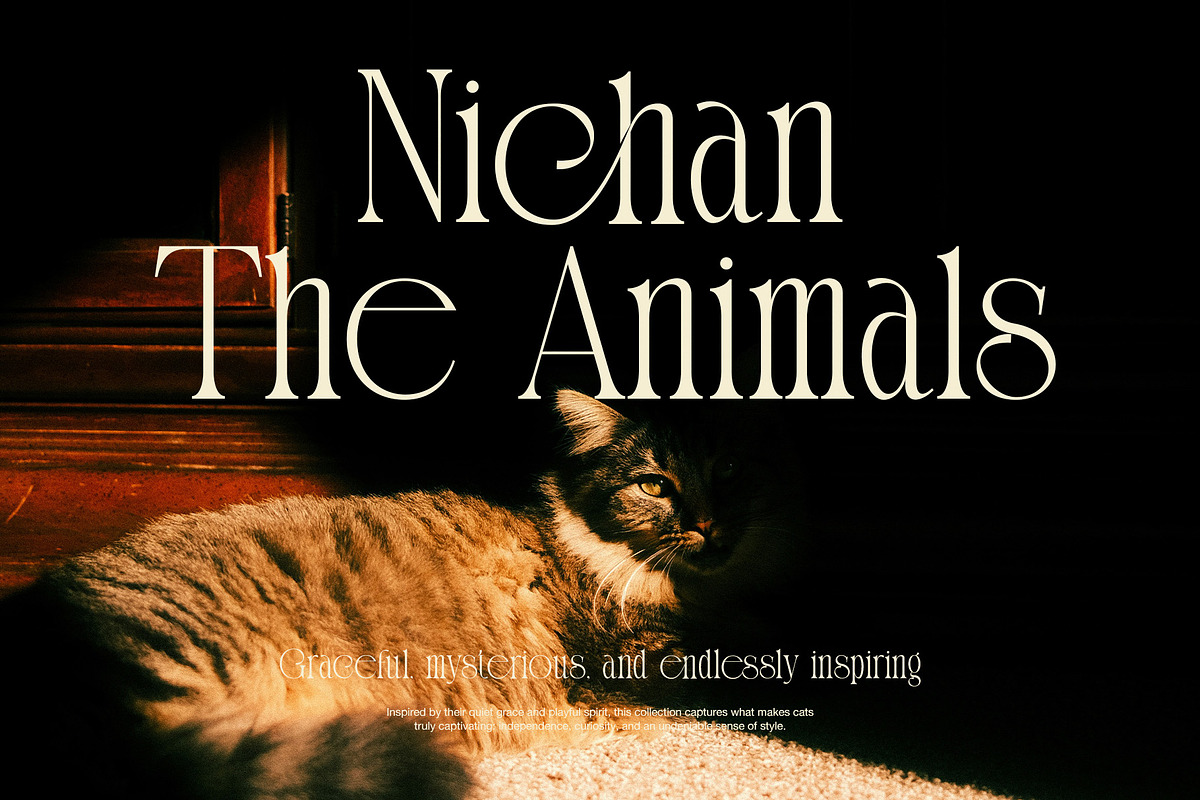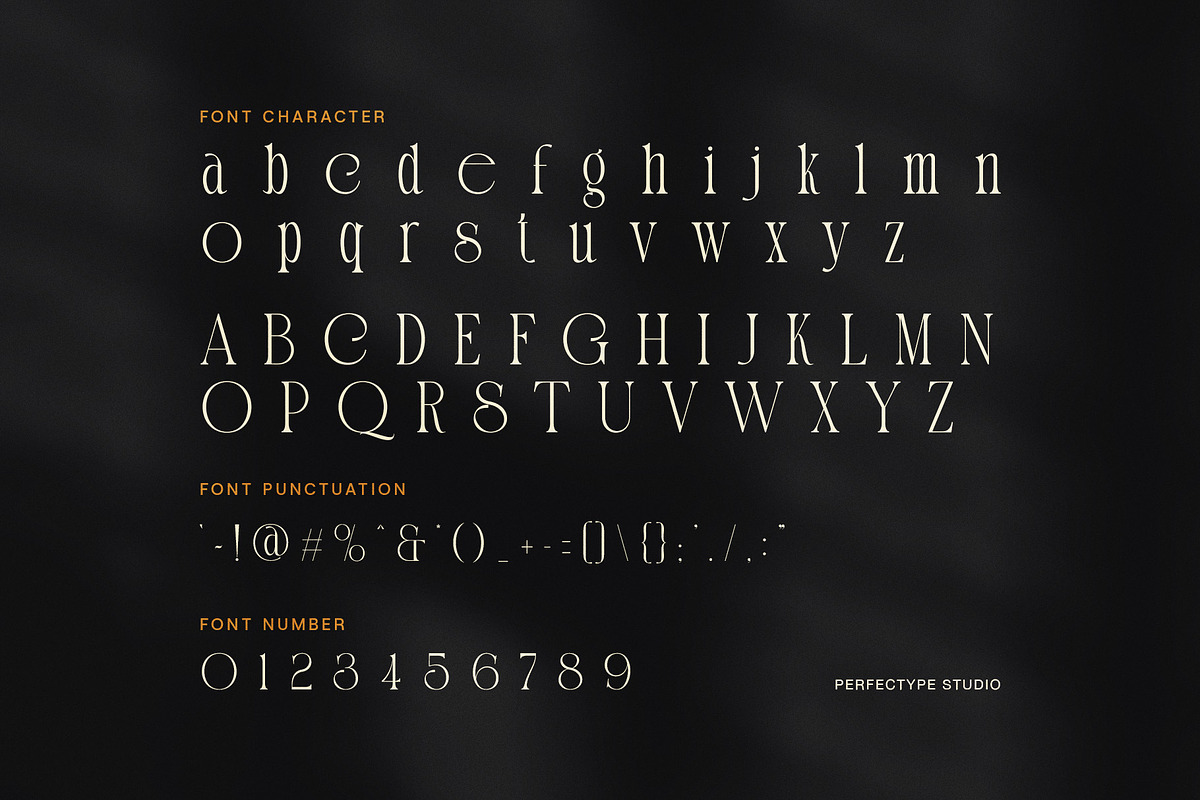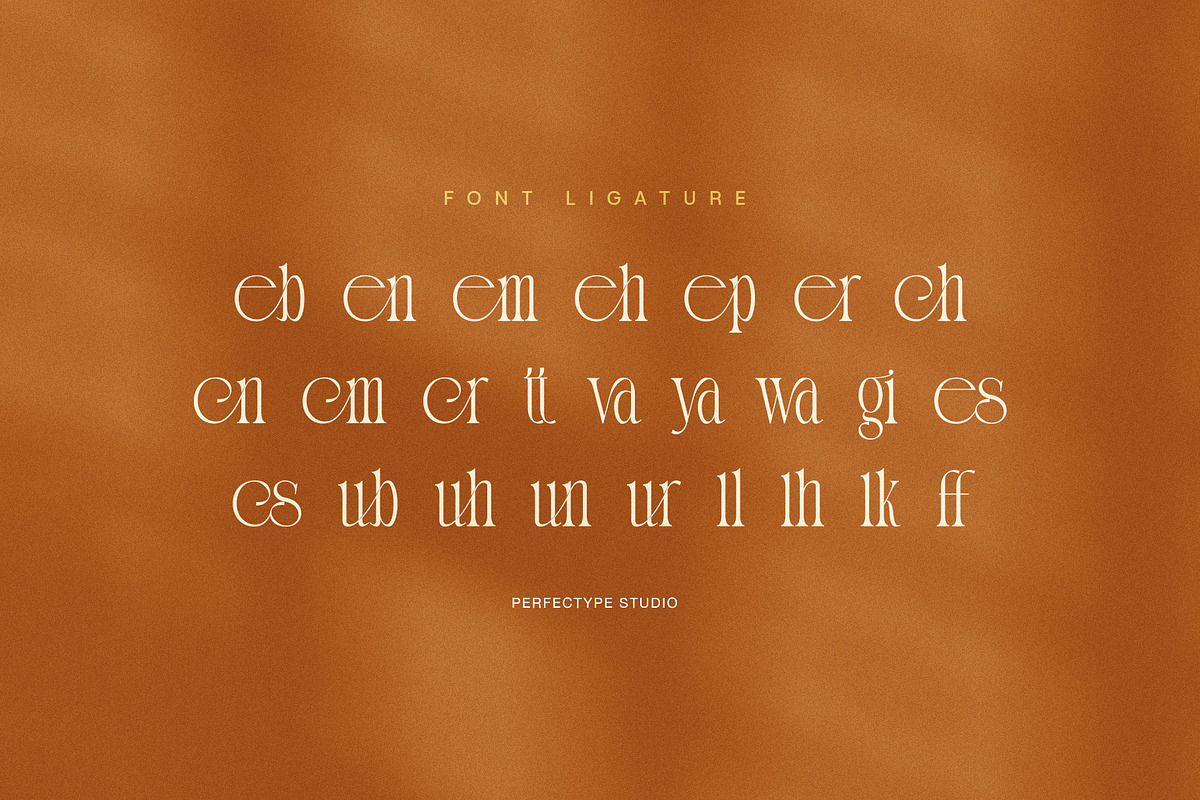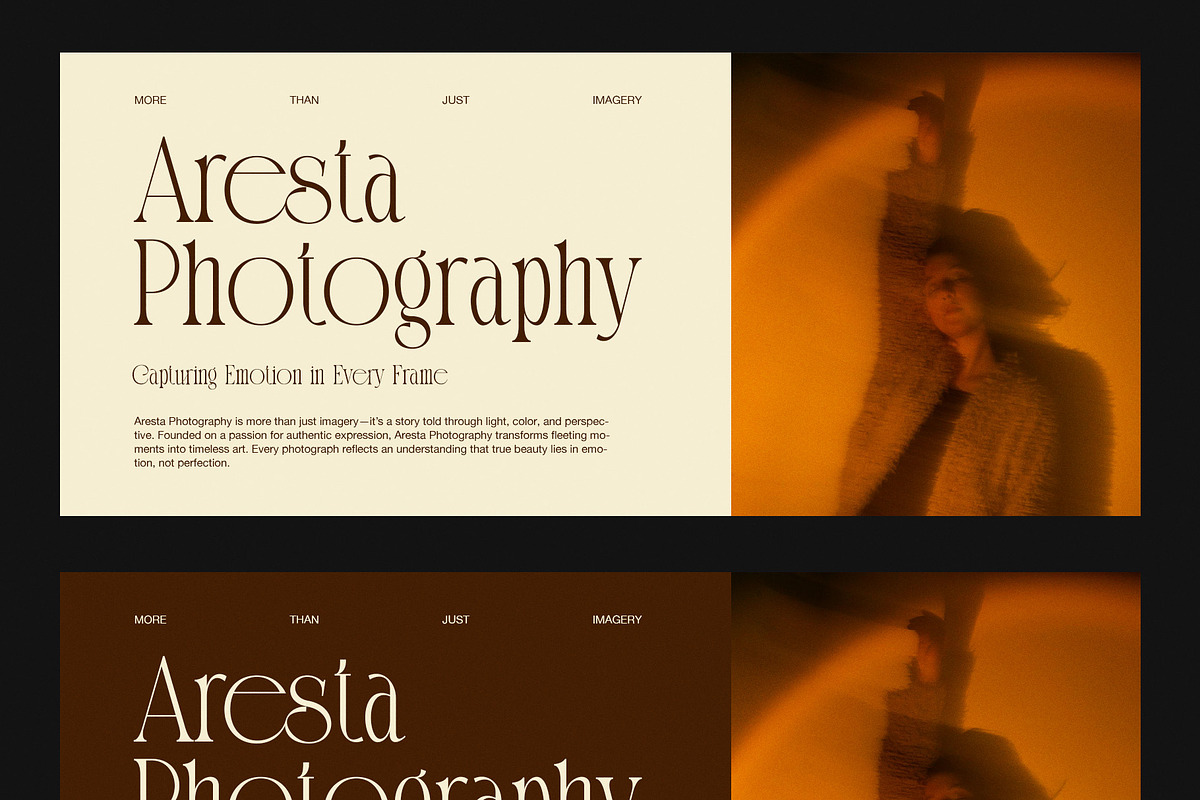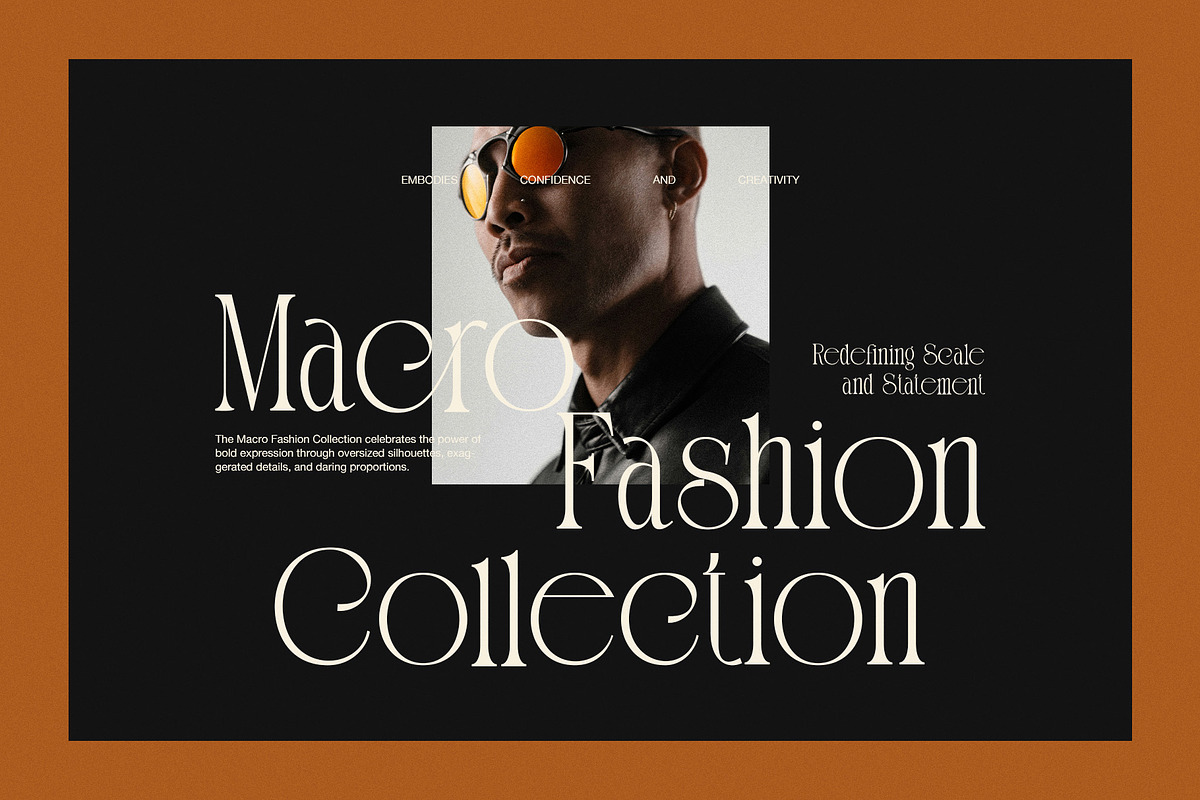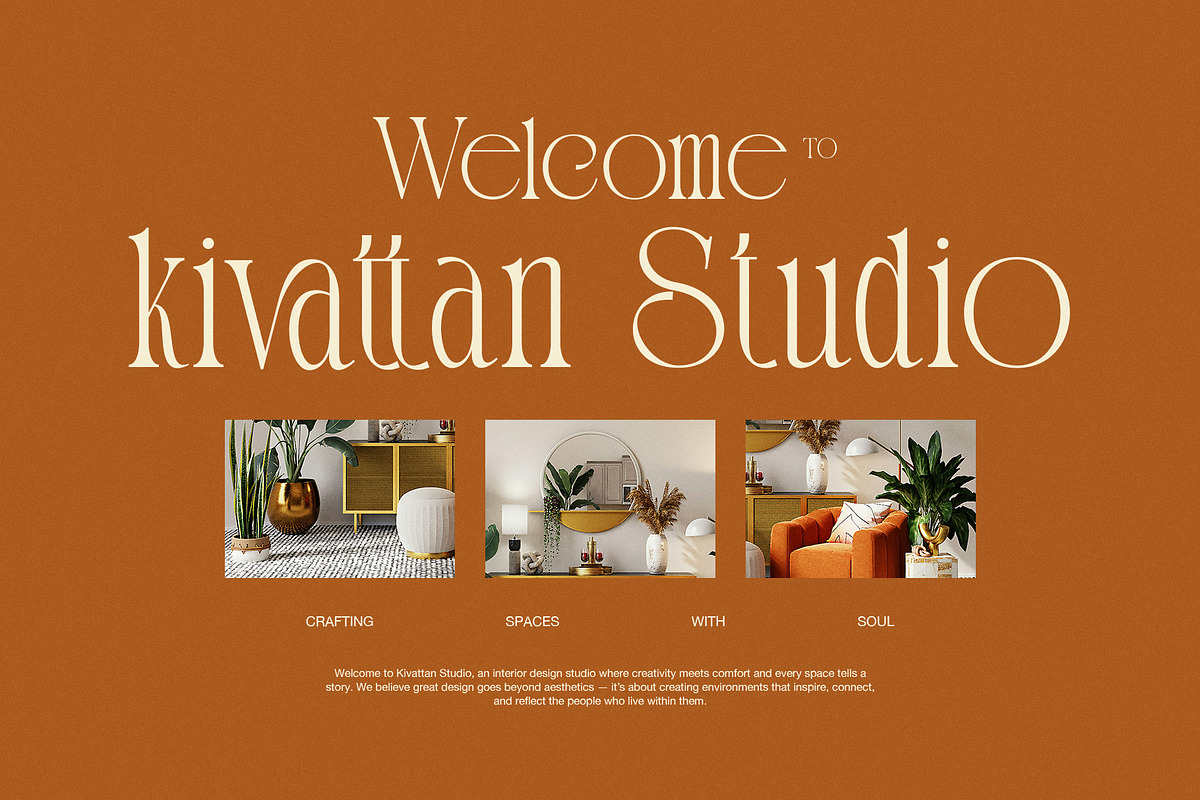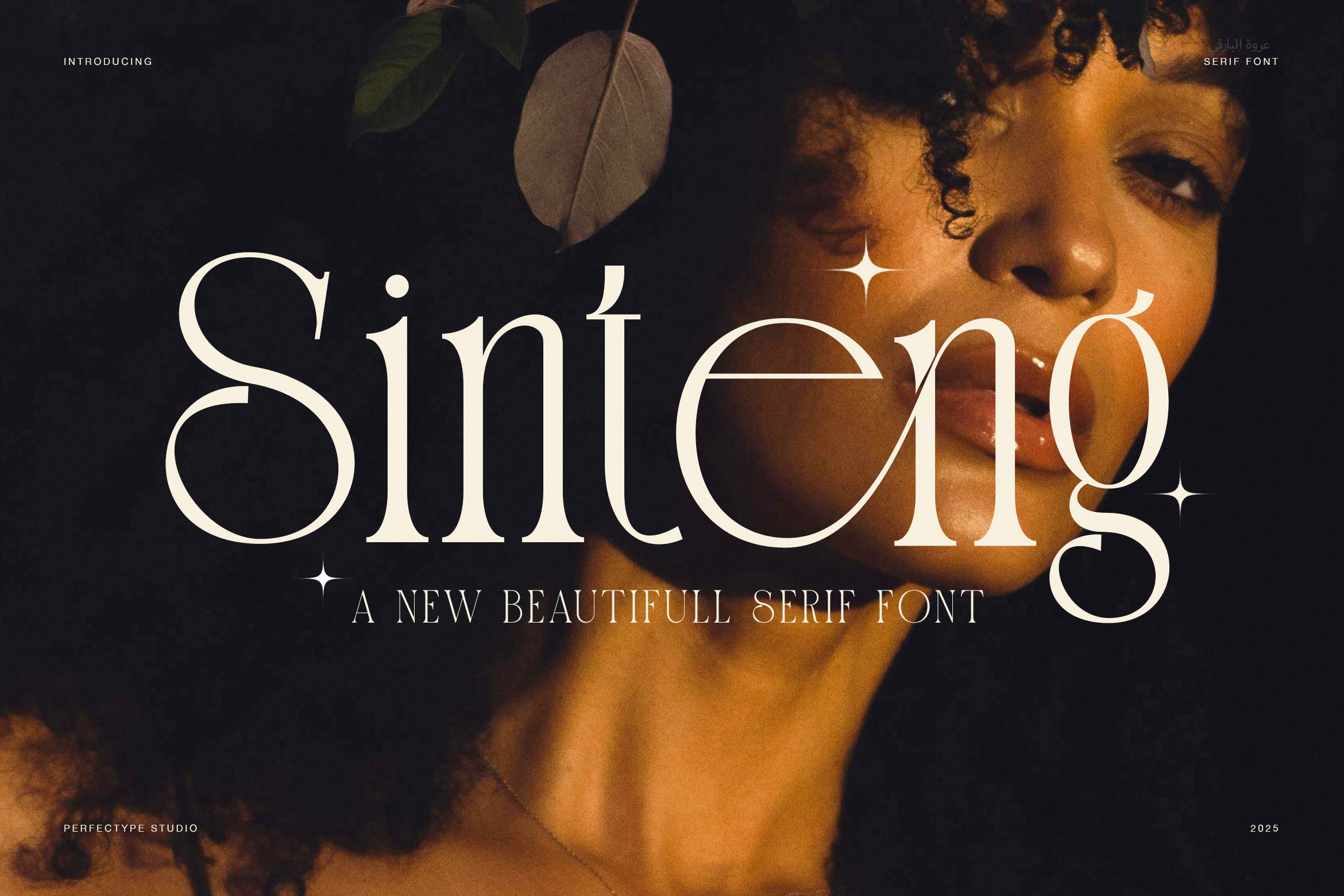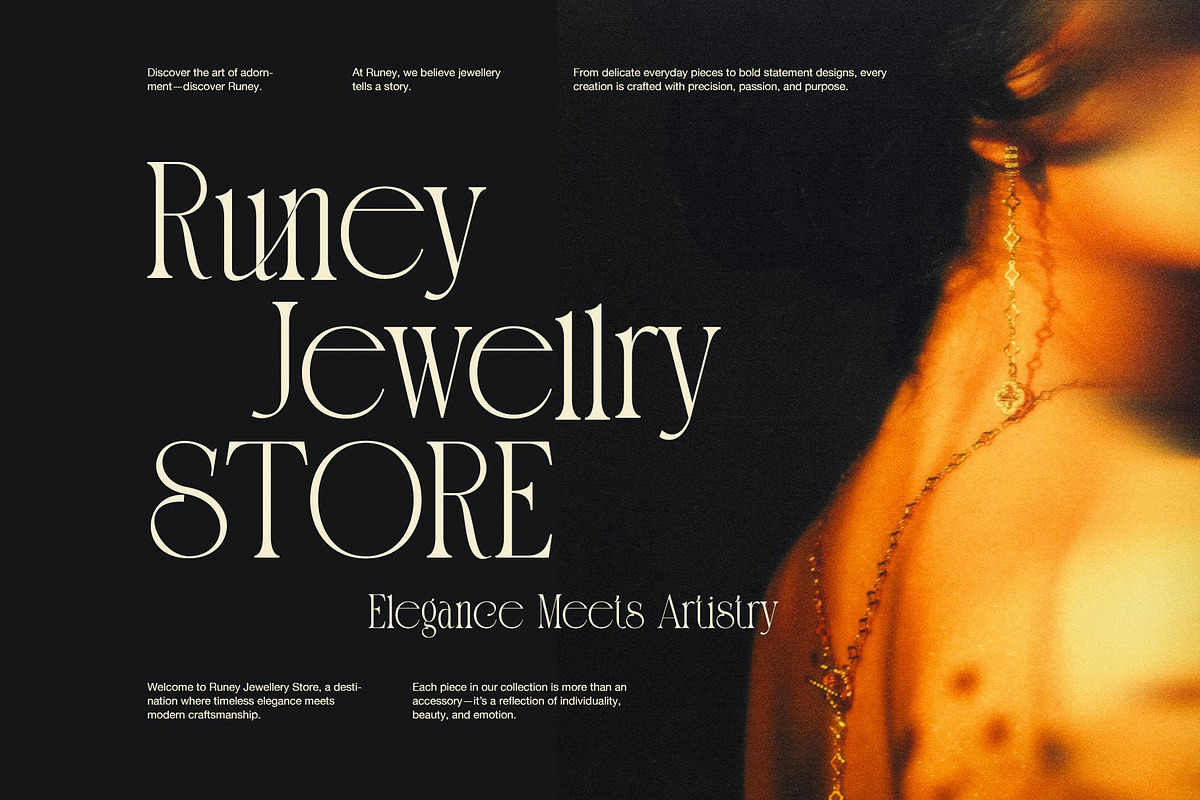
Sinteng – Modern Elegant Serif Font
Sinteng is a modern elegant serif font designed for creators who value timeless sophistication and artistic flair. Every curve, contrast, and stroke in Sinteng was crafted to express confidence, beauty, and high-end style. Perfect for luxury branding, fashion editorials, packaging, and creative portfolios, Sinteng adds character to every design it touches.
With balanced proportions and refined details, Sinteng blends classic serif charm with a touch of modern minimalism. Its graceful alternates and ligatures create smooth visual flow, making each word feel thoughtfully designed. Moreover, this font’s tall letterforms and unique contrast allow text to look elegant in both large displays and small sizes.
You can use Sinteng for logos, invitations, jewelry brands, magazines, and interior design projects. It transforms simple layouts into captivating compositions filled with personality. Because it combines beauty and versatility, it works well for both editorial elegance and modern branding.
Features included:
Uppercase and lowercase letters
Numerals and punctuation
Unique ligatures and alternates
In addition, Sinteng supports clean readability without losing its decorative charm. It gives you flexibility to express creativity while maintaining professional polish. Whether you design product labels, posters, or digital content, Sinteng will elevate your project with refined artistry and visual grace.
Choose Sinteng Serif Font when you want sophistication, emotional warmth, and modern style in perfect harmony. Its charm feels natural yet luxurious, creating designs that stand out effortlessly and remain timeless across every medium.